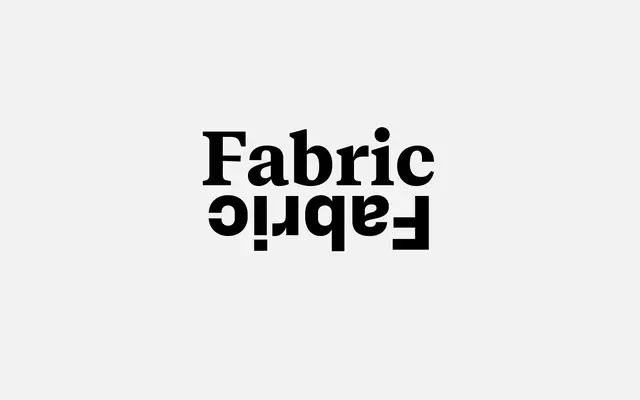
Fabric Serif
Monokrom · Sindre Bremnes, Frode Helland, Wei Huang · 2020
A sharp, austere text serif by Sindre Bremnes and Frode Helland, reimagining Plantin through Renaissance letterforms on Baroque proportions with Modernist detailing.
Conceived as the serif counterpart to Fabric Sans, this typeface shares the same structural foundation of curve tension, rhythm and metrics as its companion while diverging in morphology and detailing. The design traces a line from 15th-century letterforms through the Baroque proportions of Pierpoint's 1913 Plantin, arriving at a crisp, contemporary finish suited to demanding text settings. Three weights from Regular to Bold, each with italics, make it a lean but capable family for editorial and typographic hierarchy work.
Described as a reimagining of Plantin, itself a Baroque-proportioned revival of Renaissance letterforms with Modernist detailing; sits comfortably in the transitional serif category given its layered historical references and contemporary finish.